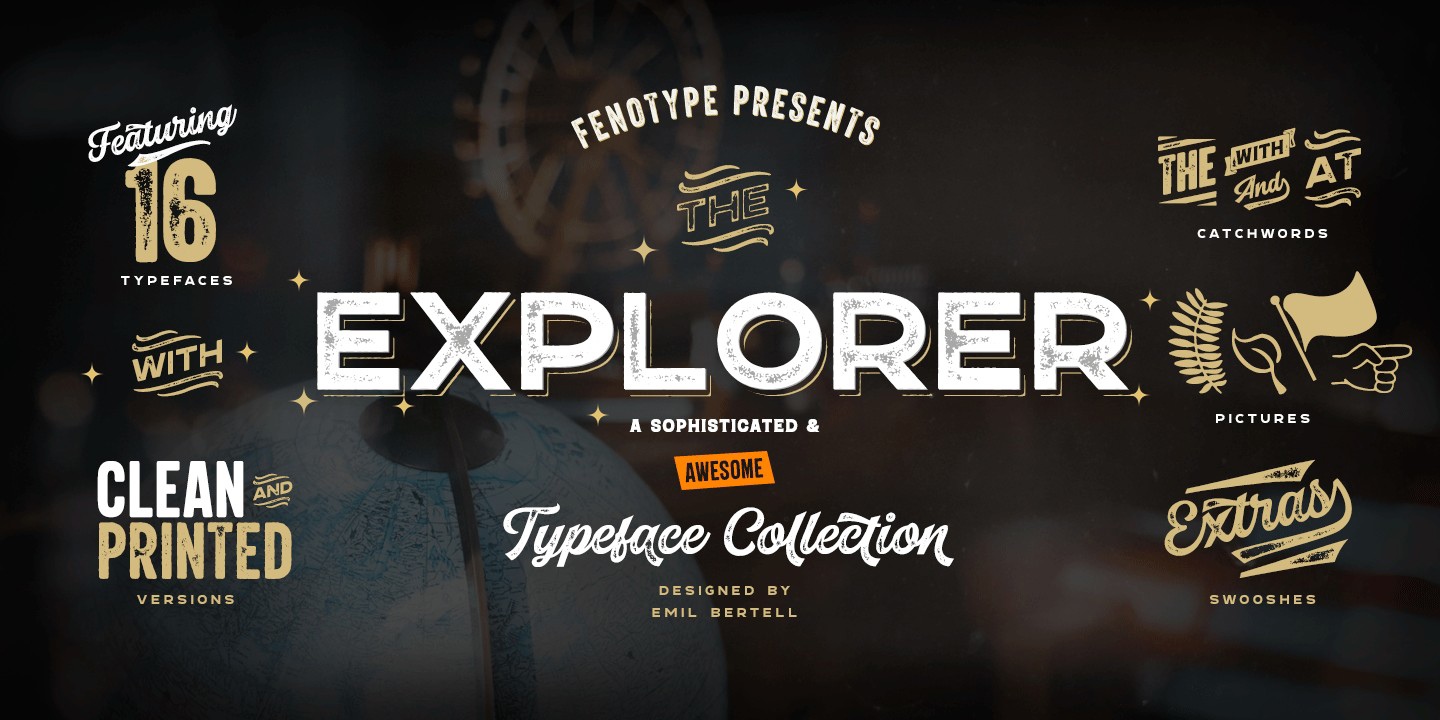
Explorer Font
This adventurous typeface is perfect for outdoor gear branding, expedition company logos, travel agency materials, adventure tourism marketing, wilderness survival equipment packaging, explorer club signage, outdoor magazine layouts, and rugged lifestyle campaigns. Explorer Font delivers pioneering spirit in applications where adventure authenticity and exploration courage are essential for connecting with thrill-seeking audiences who value discovery experiences and wilderness challenges.
What makes Explorer Font so exciting is its masterful embodiment of expedition heritage and adventurous determination through robust typography. The font features sturdy letterforms with weathered characteristics that suggest years of outdoor exposure and frontier exploration. Each character has been carefully crafted to convey reliability and adventure readiness while maintaining excellent readability in challenging environments and outdoor applications. The typeface's pioneering personality creates immediate associations with discovery and exploration, making it perfect for brands dedicated to helping adventurers explore uncharted territories and push beyond their comfort zones through their visual identity.
The Explorer Font includes expedition-ready style variations: Regular, Bold, Weathered, and Stencil versions. This adventurous collection allows designers to create rugged layouts and establish authentic typographic treatments that capture the essence of wilderness exploration and outdoor adventure. Each style maintains the font's inherent durability while providing different weathering levels for various adventure applications and exploration-themed design contexts.
Whether you're developing outdoor adventure brand identities, creating expedition marketing materials, or designing wilderness survival campaigns, Explorer Font Free Download provides the rugged character that resonates with adventure seekers and outdoor enthusiasts. Its pioneering appeal makes it particularly suitable for adventure tour companies, outdoor equipment manufacturers, wilderness training schools, and exploration organizations. The font's durable presence ensures maximum impact in both outdoor signage applications and adventure marketing materials, while its versatile design adapts perfectly to rugged, outdoor, and expedition aesthetic approaches.
This pioneering typeface represents the ultimate choice for designers who understand the power of adventure authenticity in creating meaningful connections with exploration-minded audiences and outdoor adventure communities.